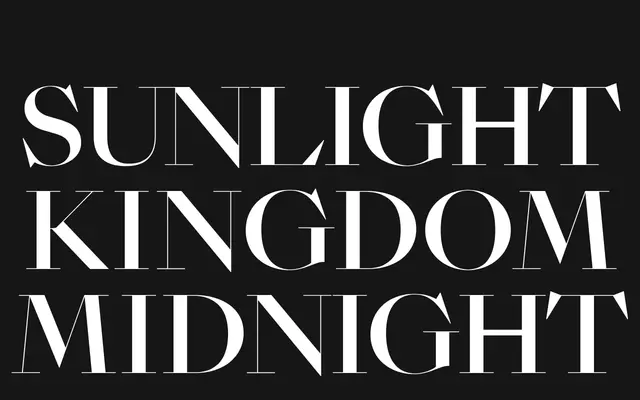
Sunlight
Newglyph · Ian Party
A high-contrast Didone with large-than-life proportions from Ian Party at Newglyph, available in 72 styles including variable axes for weight, width and contrast.
Drawing on the Didot tradition while referencing Caslon, Sunlight pairs extreme stroke contrast with generous proportions across 72 static styles and two variable fonts. The family spans Roman, Italic, Contrast and Contrast Italic subfamilies, with each style containing 455 glyphs and coverage for a broad range of Latin-script languages. The variable axes for weight, width and contrast give designers fine-grained control for display and editorial applications.
Sunlight is described as a Didot typeface with high contrast and large proportions, placing it firmly in the modern serif (Didone) tradition, distinguished by extreme thick-to-thin stroke contrast and vertical stress.